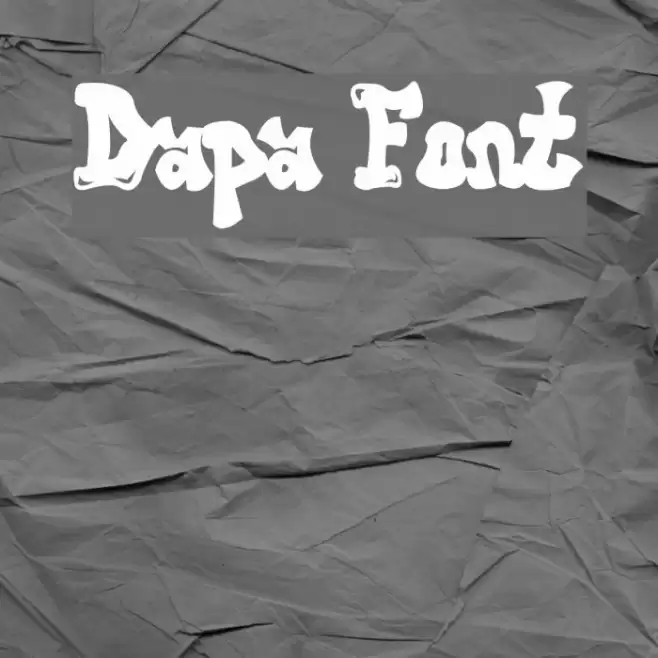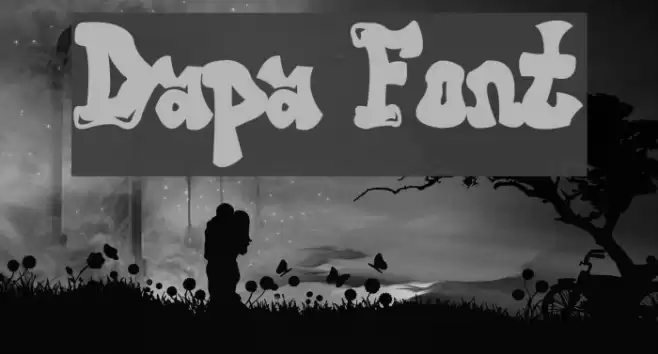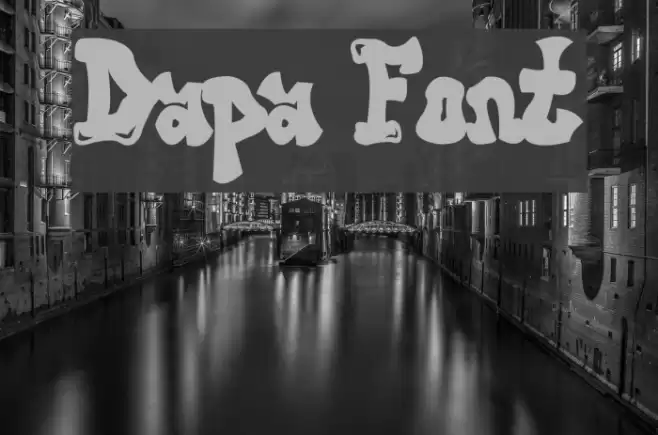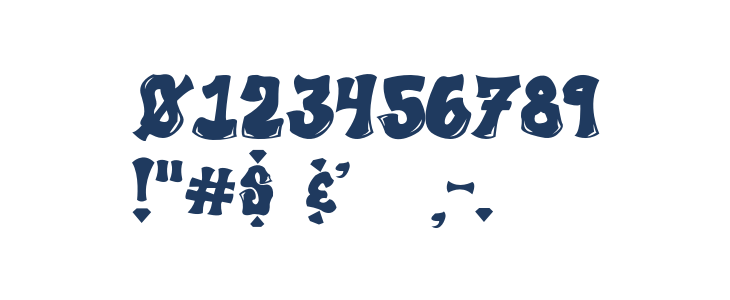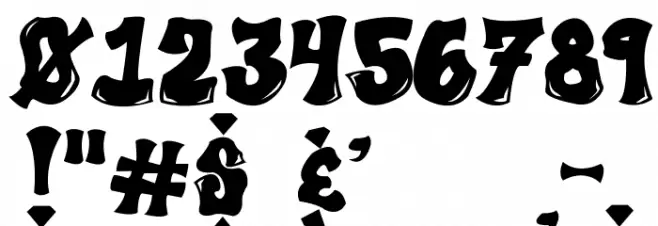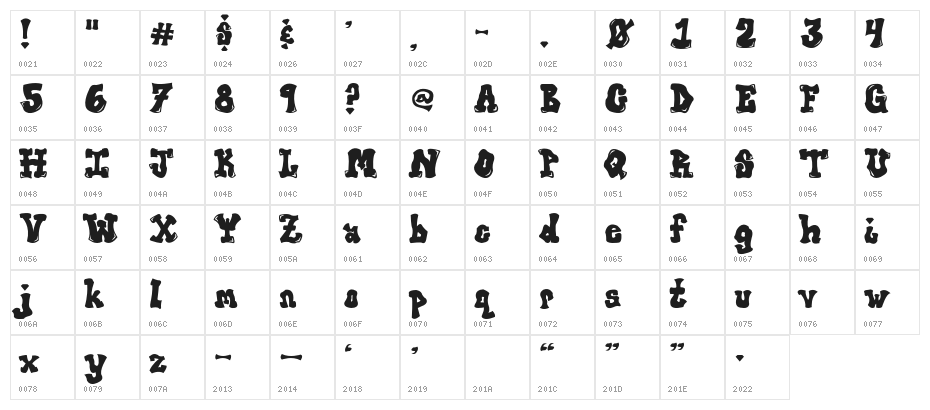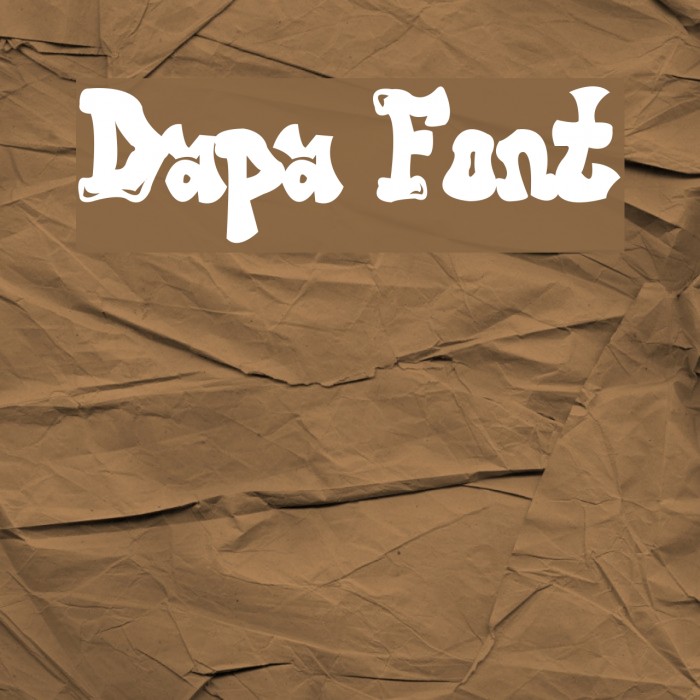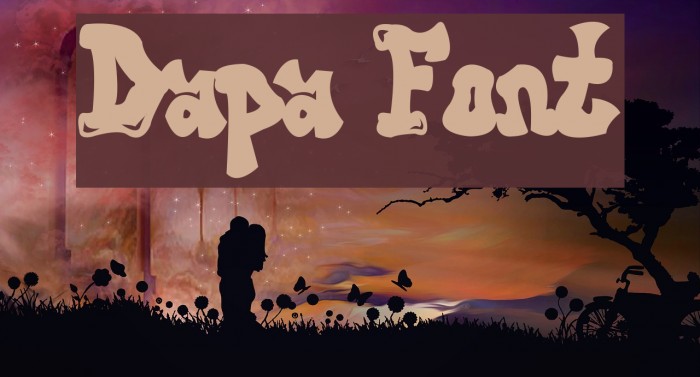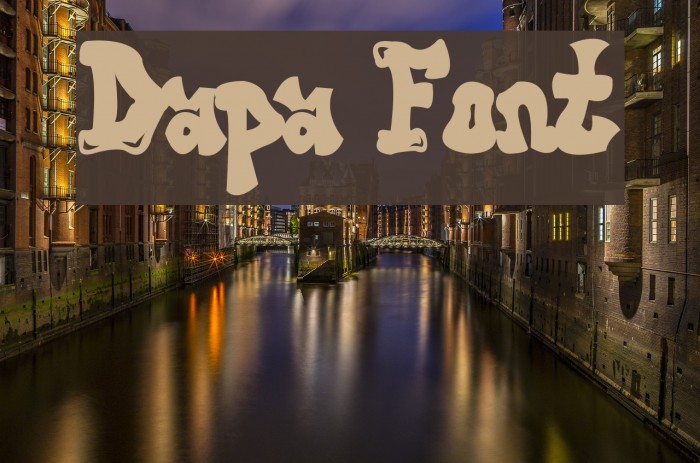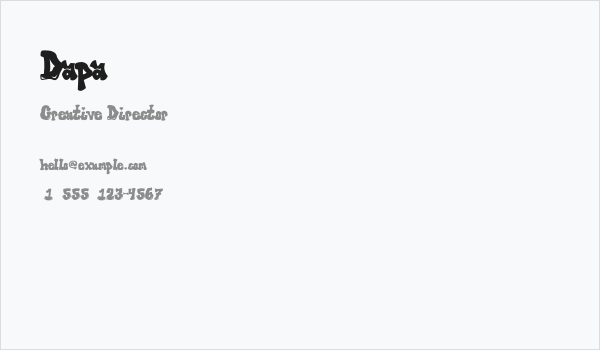
Dapa Font
Dapa Description
This font features a bold and playful design with exaggerated curves and a whimsical style. The characters are highly stylized, with a unique blend of thick and thin strokes that create a dynamic and energetic appearance. The uppercase and lowercase letters maintain a consistent, lively rhythm, while the numbers and special characters complement the overall aesthetic. The font's distinctive look makes it ideal for projects that require a fun and eye-catching typeface.
A bold, playful font with exaggerated curves and a whimsical style from Graffiti fonts.
- Proposed Projects: Perfect for children's books, party invitations, posters, and branding that requires a fun and energetic vibe.
- Use Case: Headlines, Posters, Branding